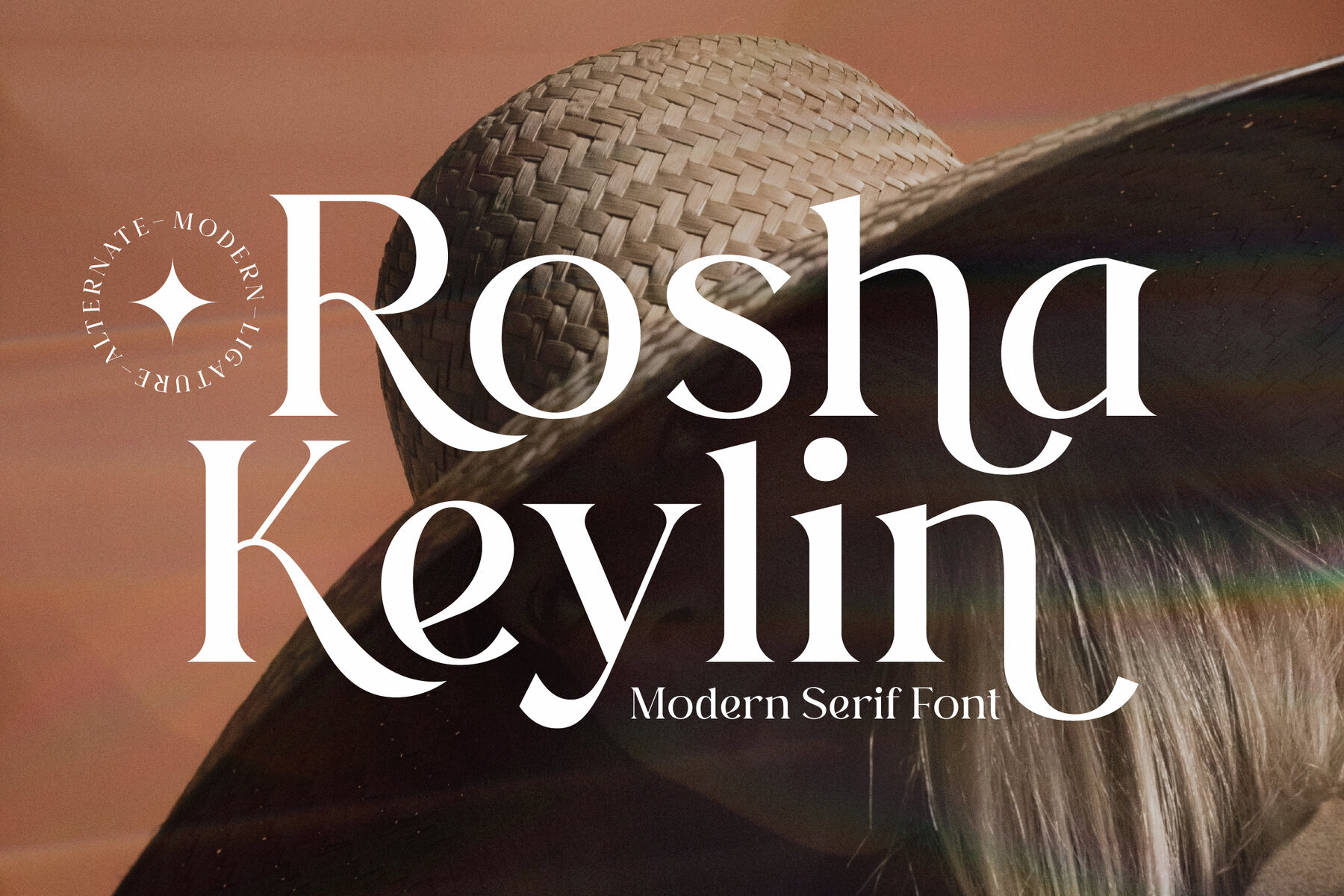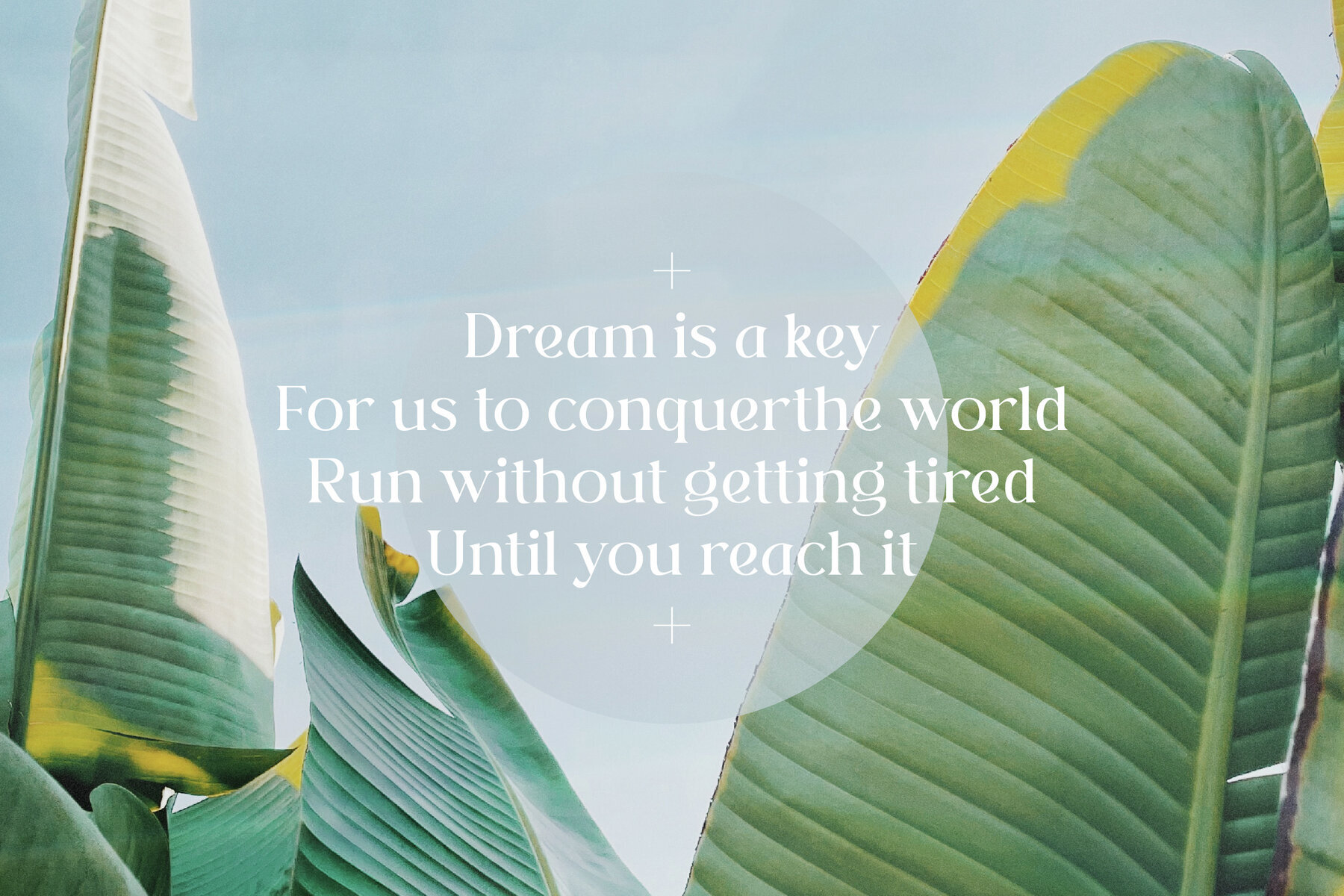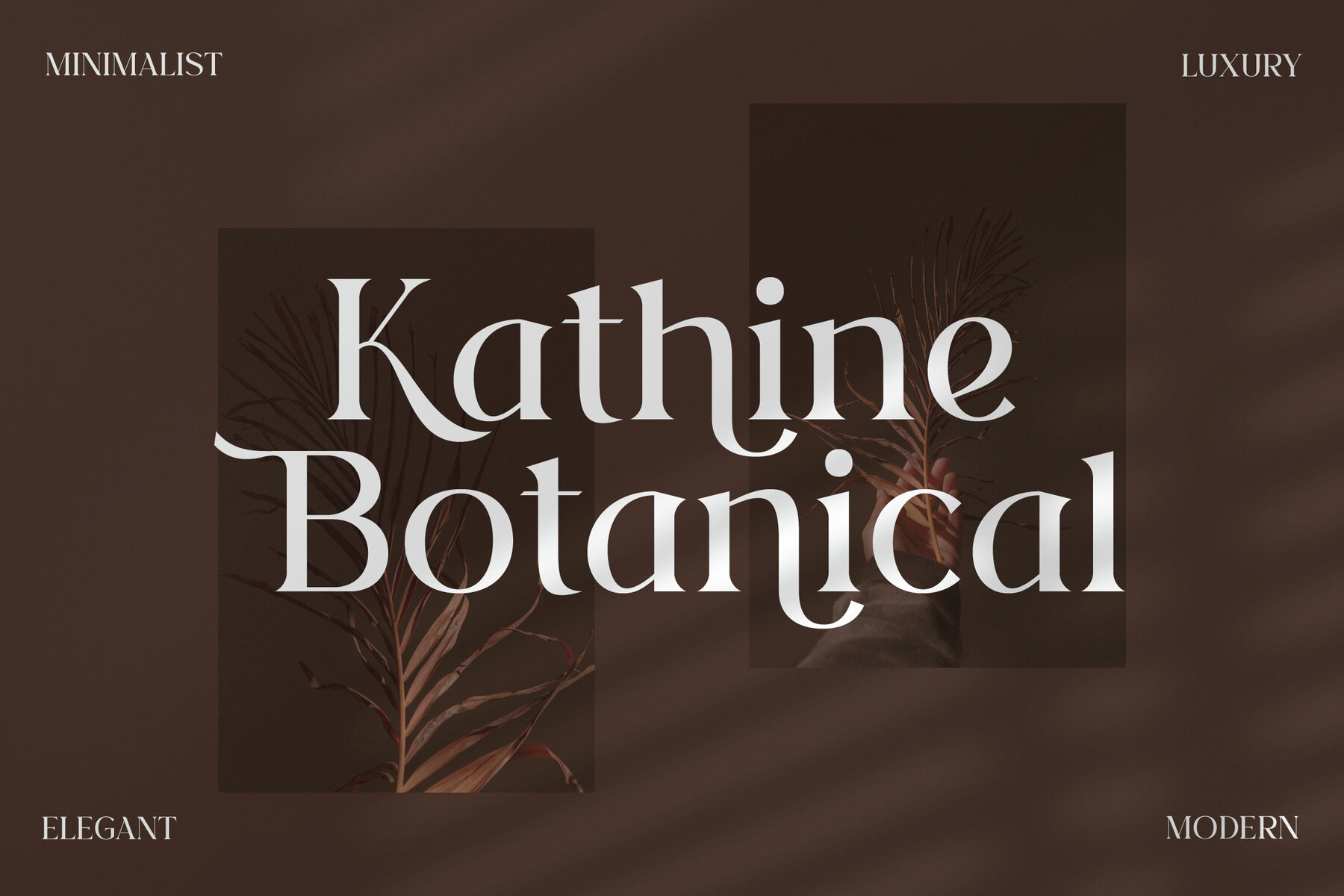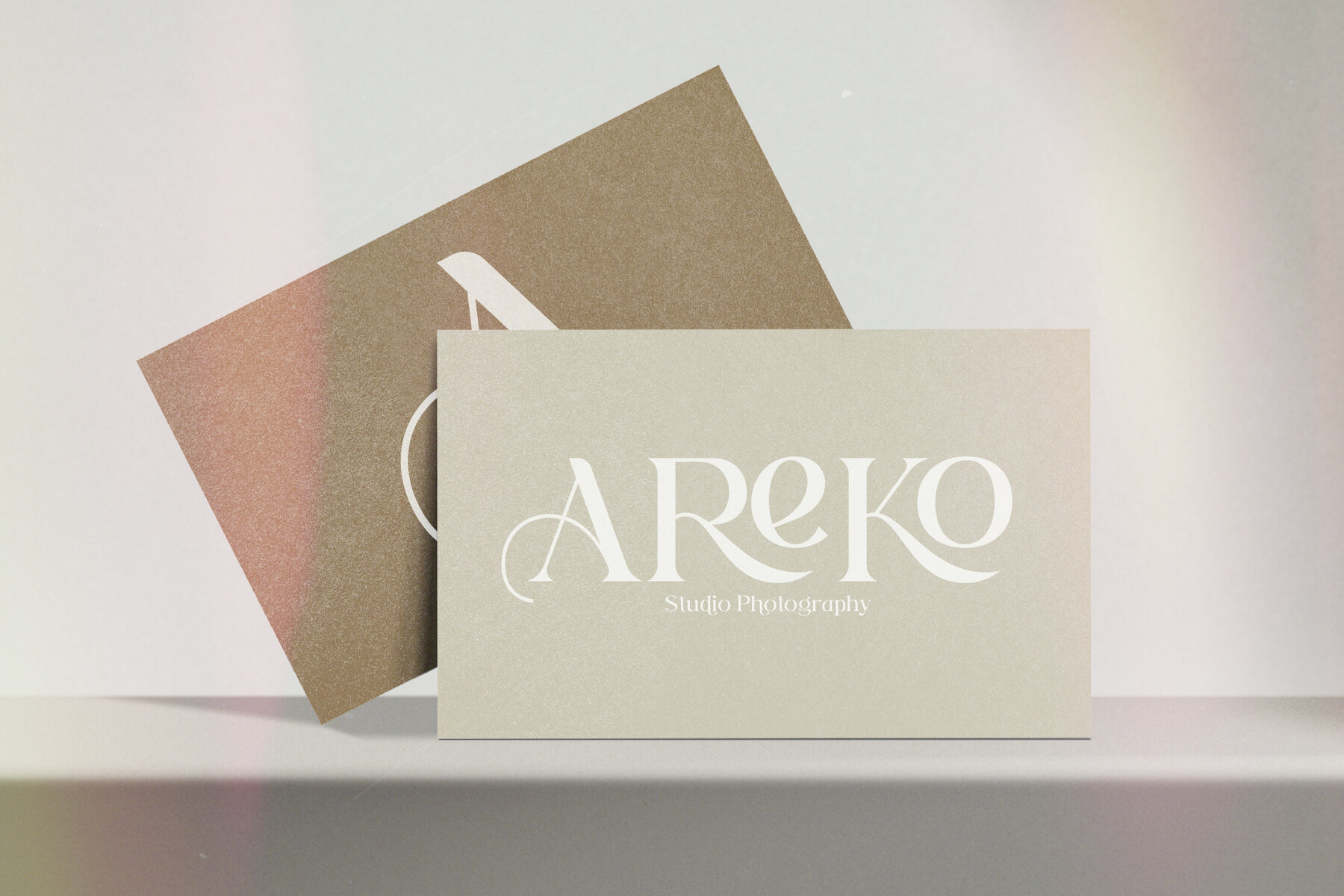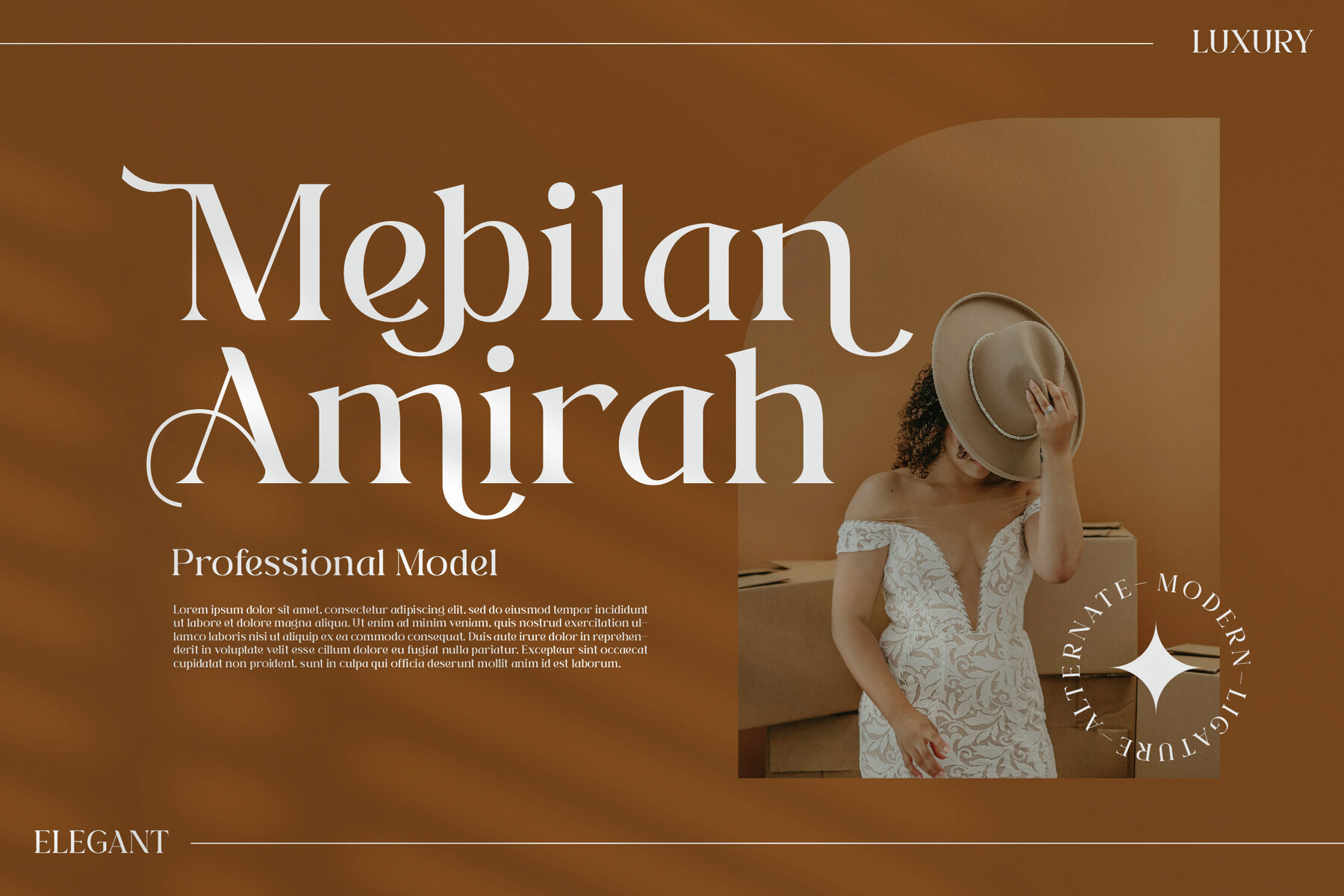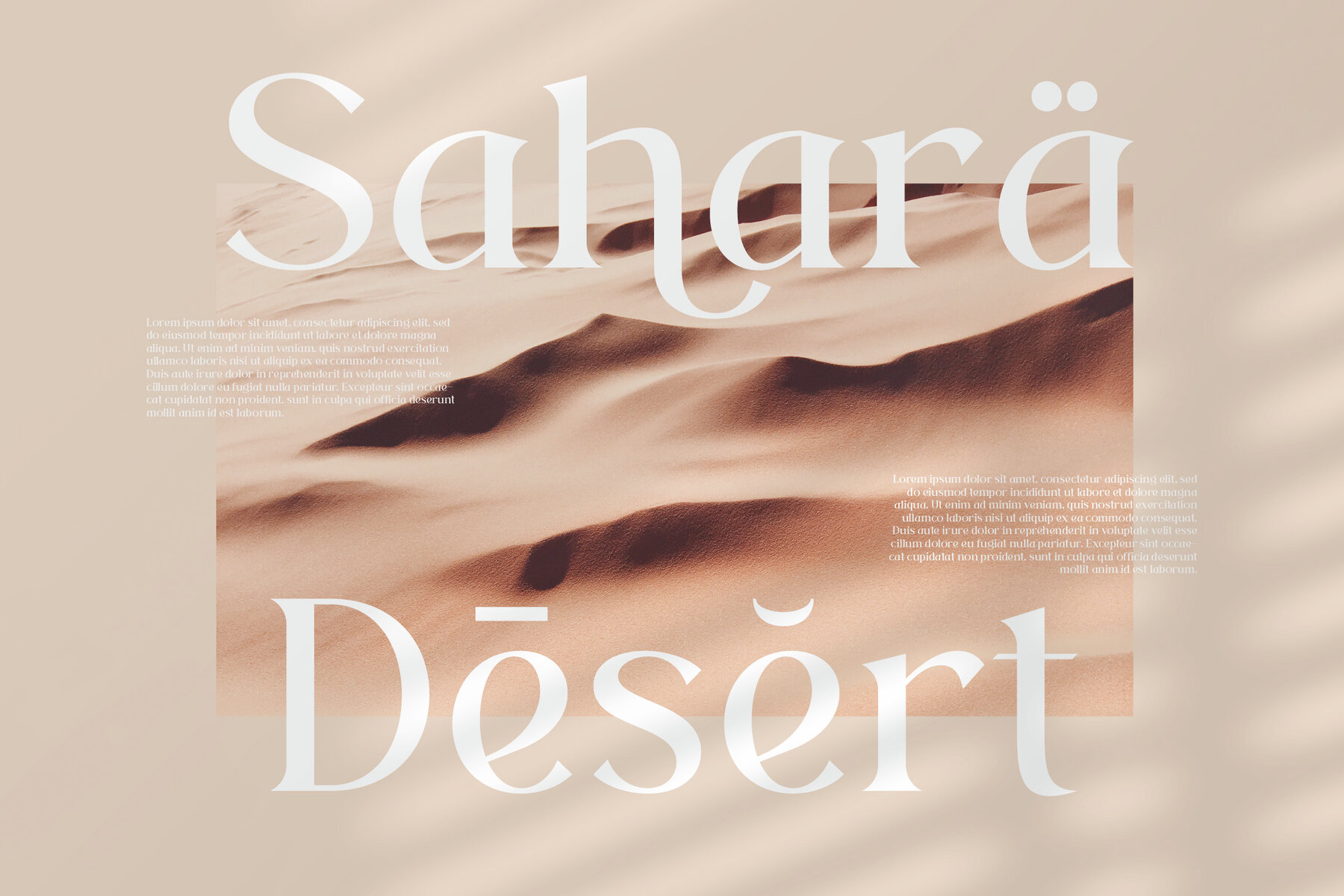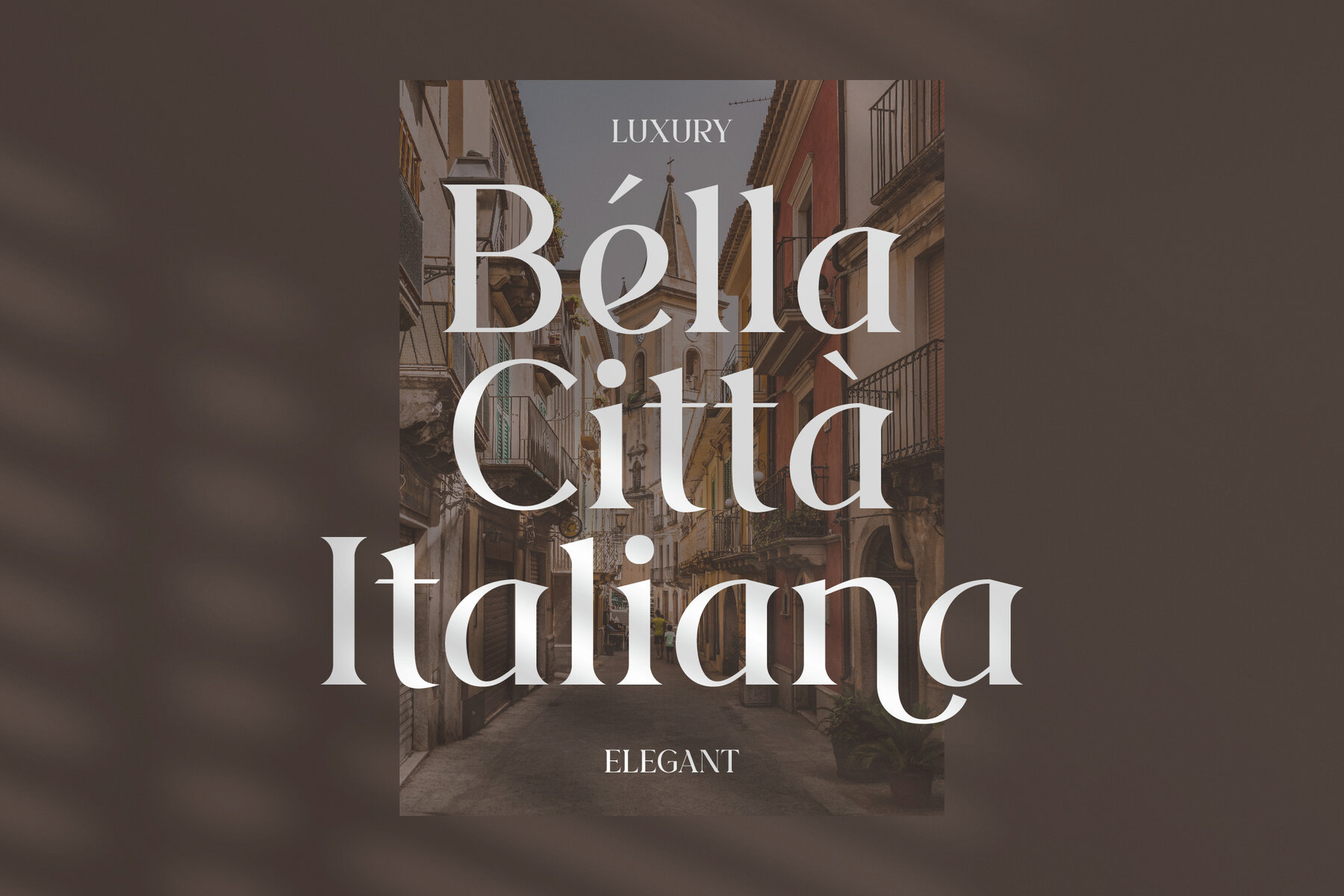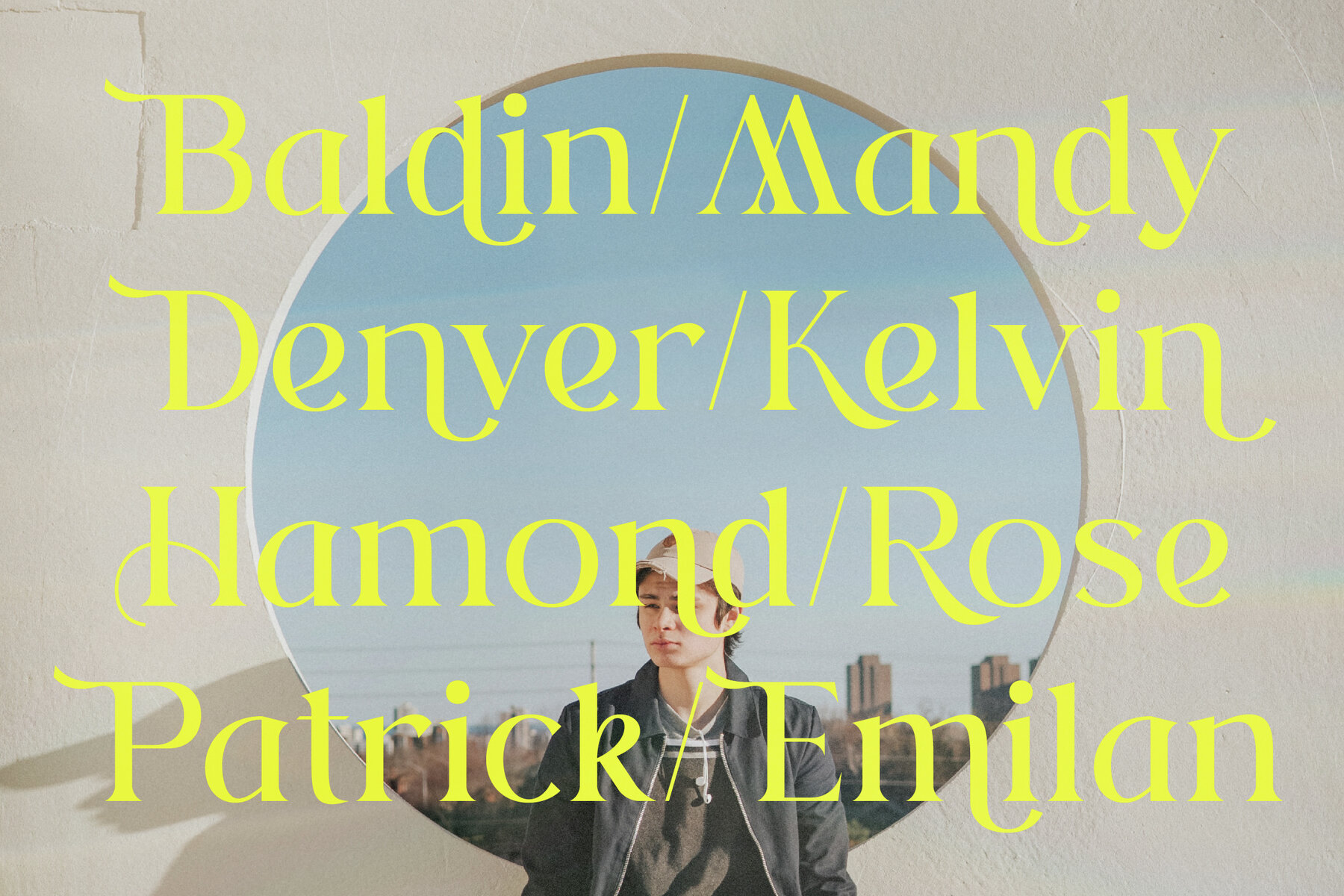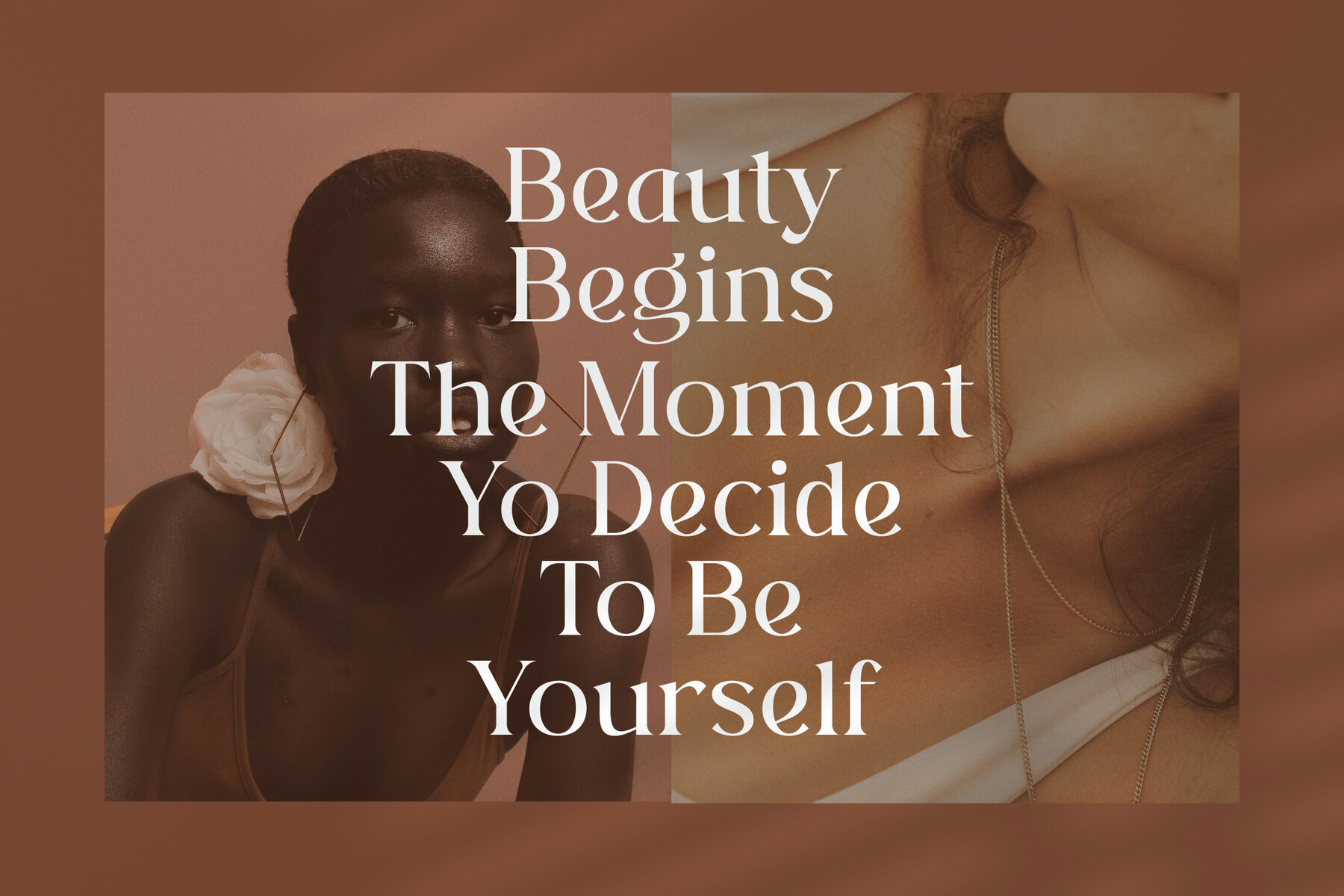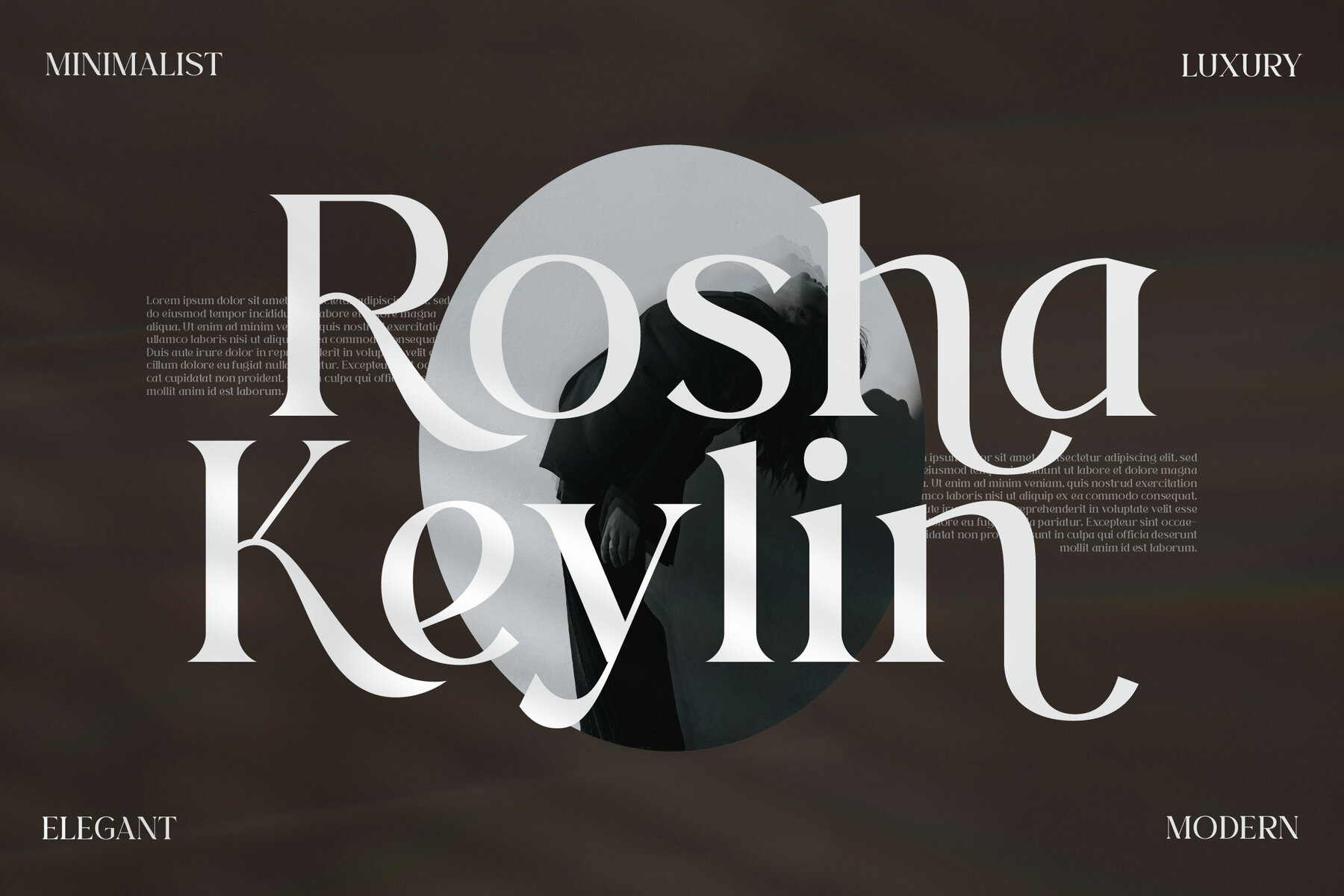
Rosha Keylin Font
Rosha Keylin is a distinguished serif typeface that melds modernity with a classic touch, bringing a unique style perfect for a variety of elegant design needs. This typeface excels in crafting luxurious logos, book or movie titles, fashion brands, magazines, clothing designs, and expressive lettering or quotes.
Features of Rosha Keylin include a comprehensive set of standard glyphs, alternate characters, and ligatures, ensuring versatility across different design contexts. The typeface is compatible with both PC and Mac systems and is easily installed. It integrates seamlessly with popular design software such as Adobe Illustrator, Photoshop, InDesign, and even Microsoft Word. PUA encoded characters offer full accessibility without requiring additional design software, while multilingual support ensures broad applicability for different languages.